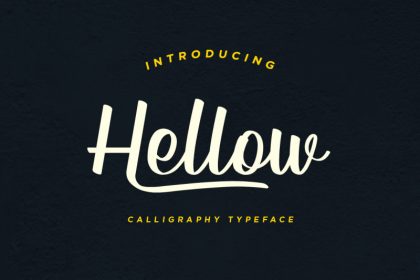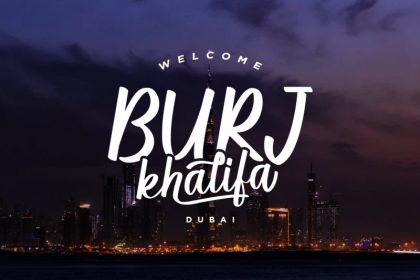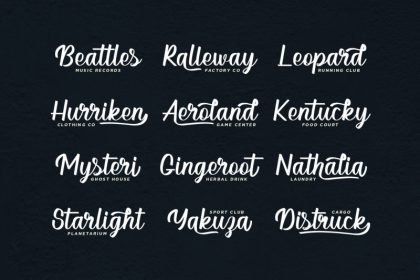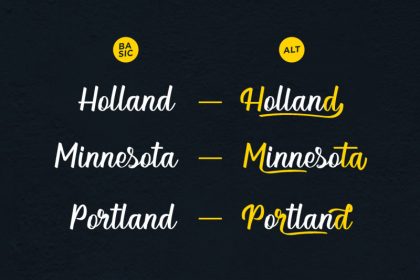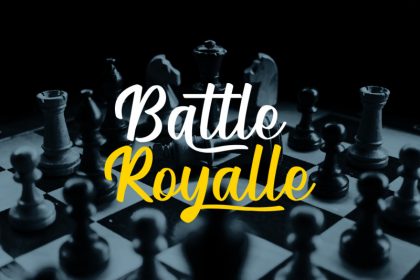
Hellow – Calligraphy Typeface
hi 😉 introduce our new Calligraphy Typeface
He was named Hellow
This font is suitable for young, passionate design, such as logo design, t-shirts, branding, and various other design purposes. it is perfect for designing your own brand and for other branding designs, these letters look perfect on all printing techniques, foil emboss, embroidery, and others.
Hellow has a full set of
– Uppercase
– Uppercase Alternate
– Lowercase
– Lowercase Alternate
– Ligature
– Numbers, Punctuation & Multilingual Symbols,